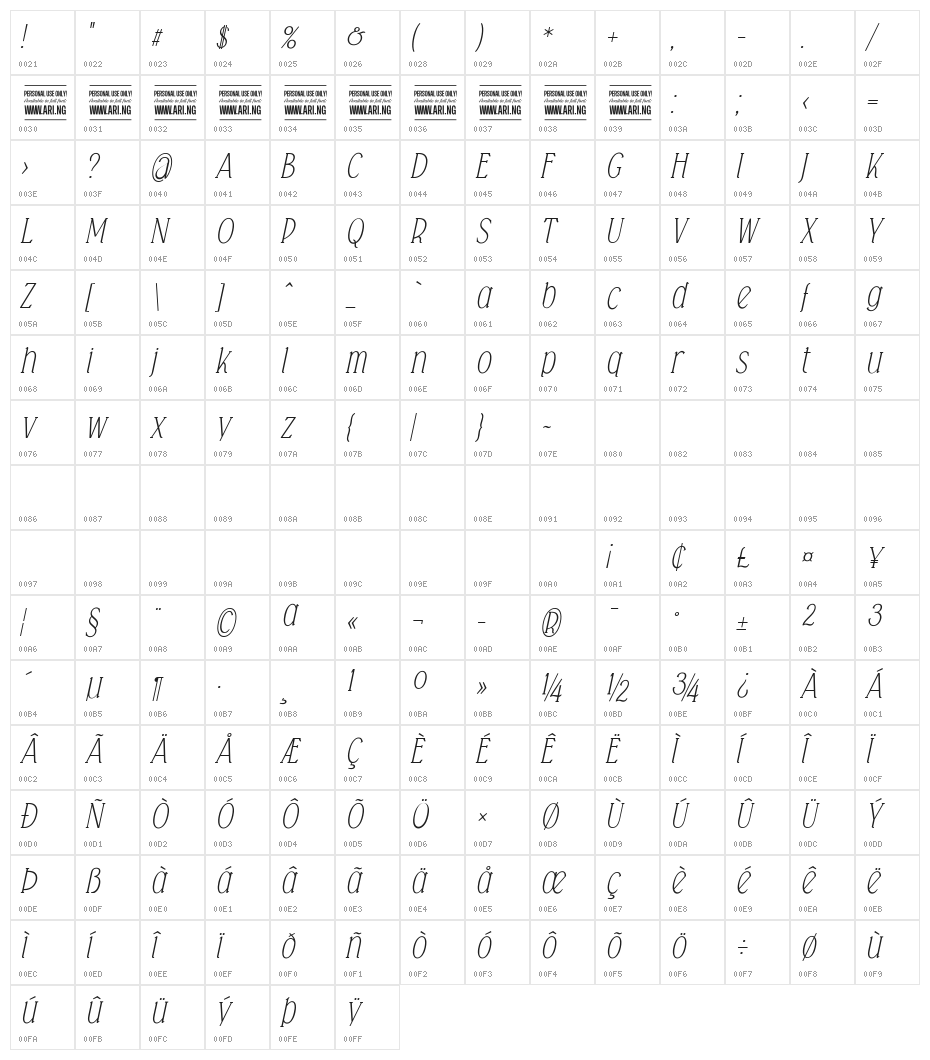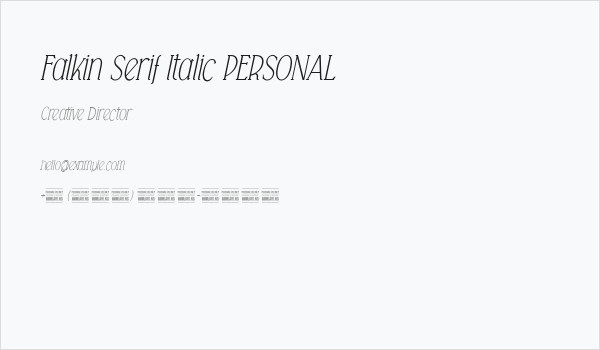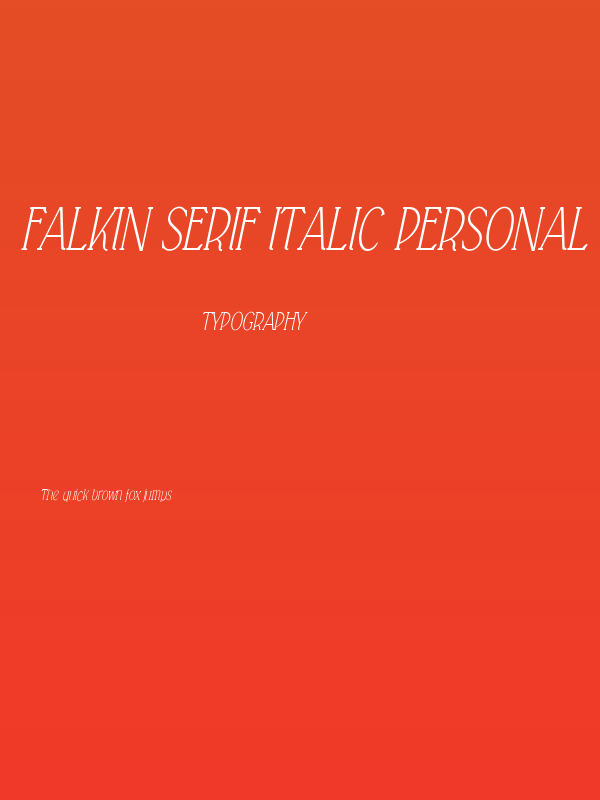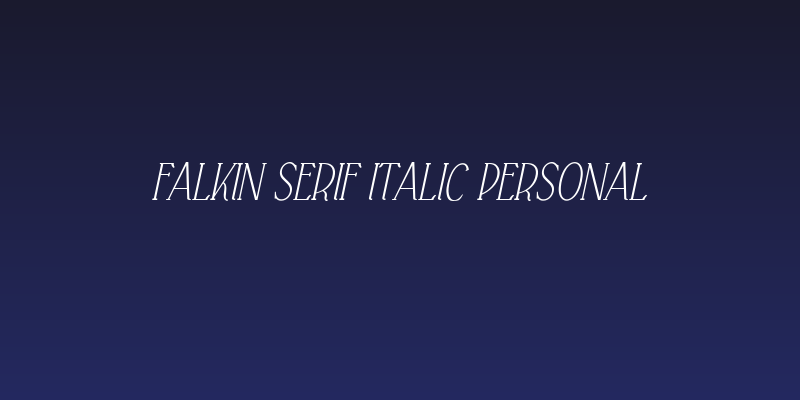
Falkin Serif Italic PERSONAL Font
Falkin Serif Italic PERSONAL Description
This elegant serif typeface features a refined italic style, characterized by its slender and elongated letterforms. The font exhibits a sophisticated flair with its high contrast between thick and thin strokes, lending a sense of grace and fluidity to the text. The serifs are delicately crafted, adding a touch of classic elegance. The overall design is both timeless and versatile, making it suitable for a variety of applications. The spacing between characters is moderately tight, enhancing readability while maintaining a cohesive appearance.
| Proposed Projects | Ideal for use in editorial design, luxury branding, wedding invitations, and elegant packaging. |